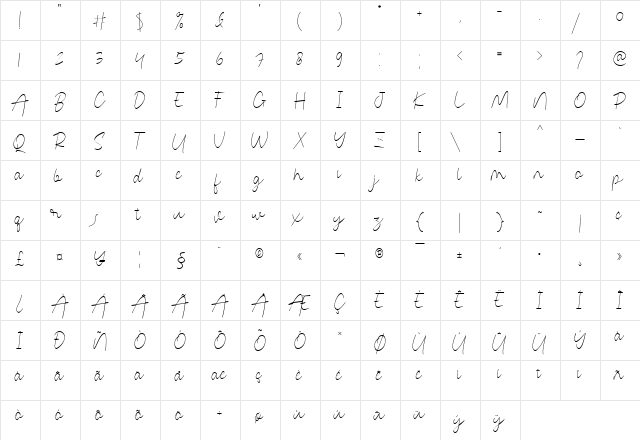
Congealed Signature Regular
| Foundry | Rometheme |
| Designer | Rometheme |
Design Context for Congealed Signature Typeface
Congealed Signature takes a measured approach to typography — its balanced proportions and neutral character make it a reliable workhorse for both digital and print work.